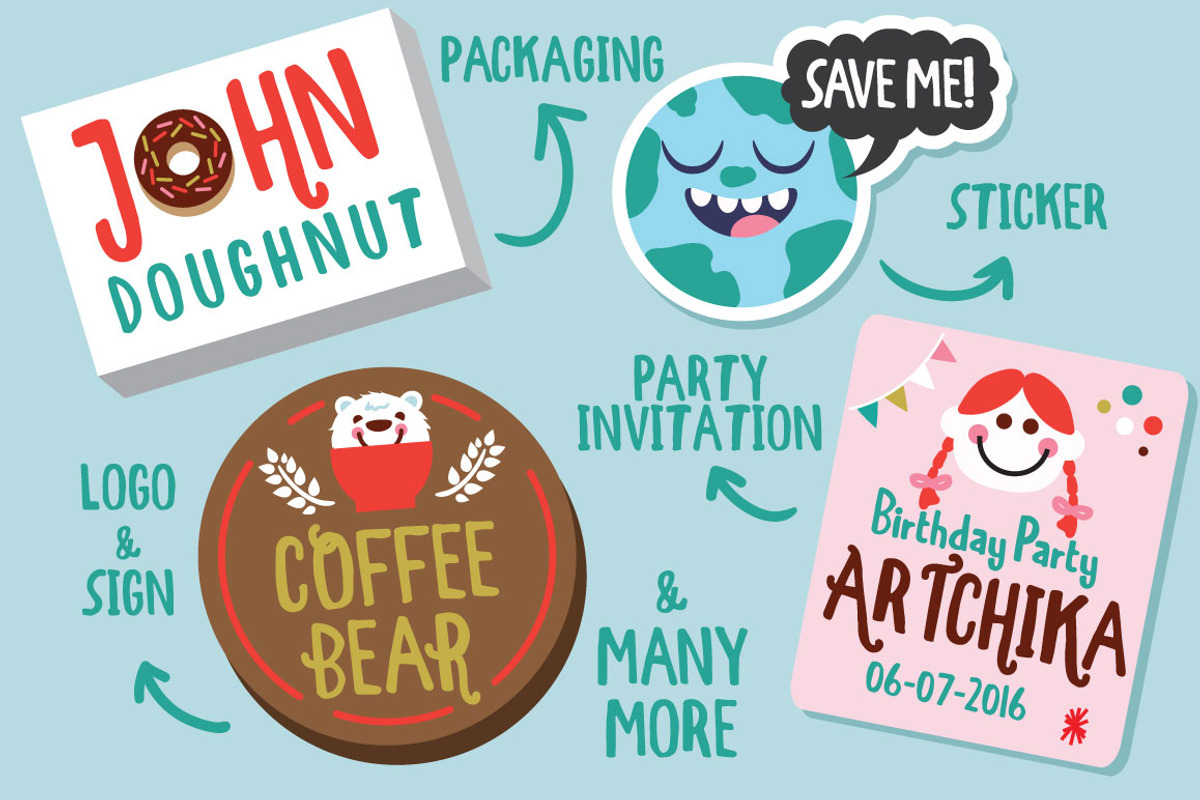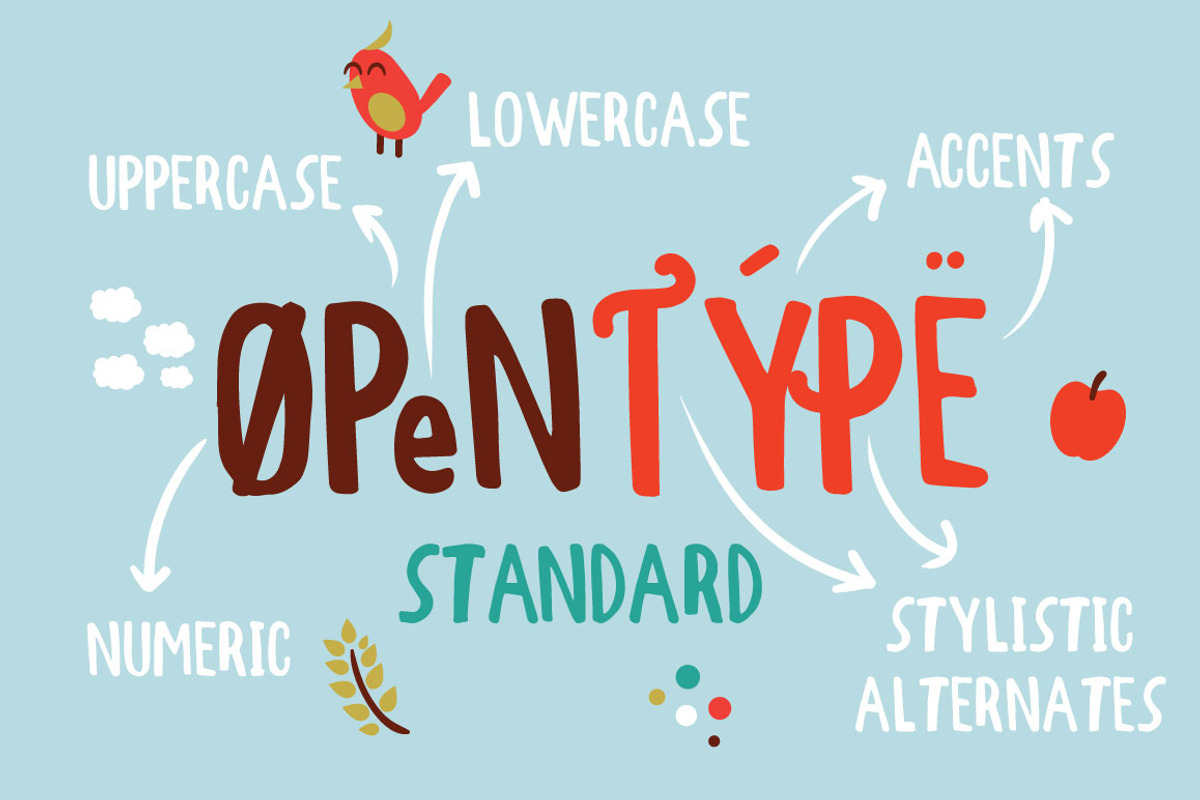
Toonish Typeface + Bonus (20%off)
Toonish Typeface + Bonus (20%off) by fopifopi is a font selected for branding, posters, packaging, typography.
- Toonish Regular
Why Toonish Typeface + Bonus (20%off) is worth a look
Toonish Typeface + Bonus (20%off) by fopifopi fits naturally into Branding, posters, packaging, typography.